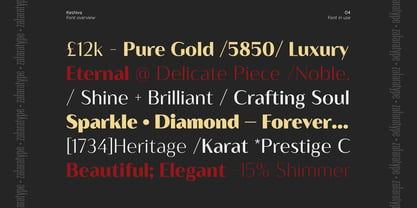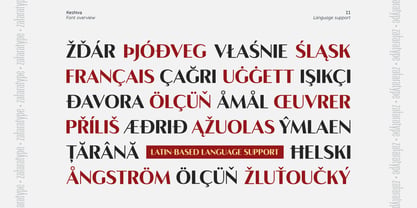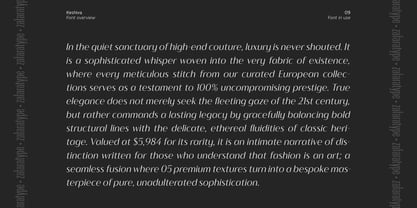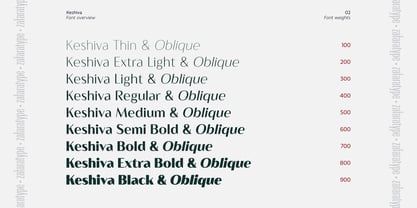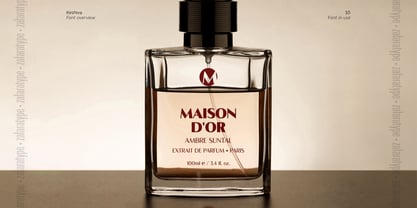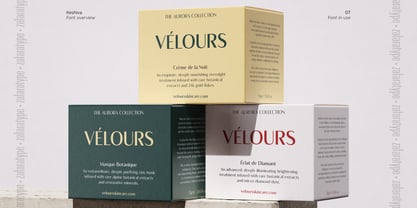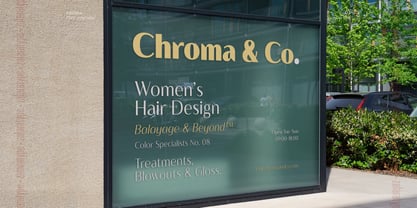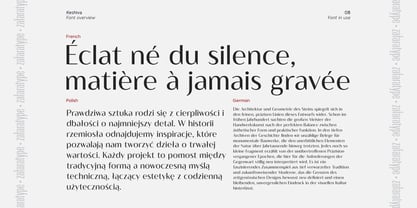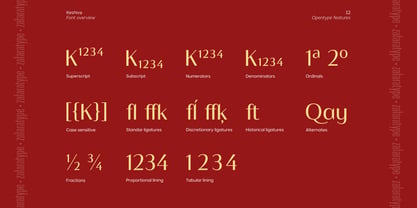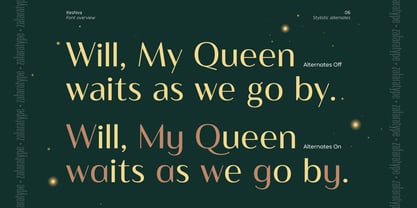
Keshiva
The Keshiva Font Family was designed by Zohan Nur Muchlis and published by Zafara Studios. Keshiva contains 18 styles and family package options. More about this family
Keshiva is a modern sans serif family with a refined, luxury-inspired aesthetic designed for contemporary branding and editorial design. Built with clean geometric structure, elegant proportions, and subtle classic influences, Keshiva delivers a sophisticated visual tone that feels polished, timeless, and highly versatile.
Its balanced construction creates a strong yet elegant presence that works seamlessly across branding, fashion, beauty, editorial layouts, packaging, logos, and modern digital design. The clarity of its forms allows Keshiva to perform well in both expressive display settings and structured typographic systems, maintaining consistency while adapting to different creative directions.
The family includes 18 styles, consisting of 9 upright and 9 oblique styles, ranging from Thin to Black. This full range provides flexibility for building refined typographic hierarchies, from delicate and minimal compositions to bold and confident statements, all within a cohesive visual system.
Carefully crafted for harmony across all weights, each style preserves the same refined character while ensuring smooth transitions throughout the family. The oblique styles introduce a subtle sense of motion and elegance, enhancing its suitability for modern branding and editorial storytelling.
With 524 glyphs and extensive Latin-based language support, Keshiva is fully equipped for multilingual use and international design projects. It is suitable for global branding, advertising, publishing, and creative work that requires both functional clarity and elevated visual expression.
Elegant, modern, and quietly confident, Keshiva is designed to bring a refined typographic voice to contemporary design systems while maintaining a timeless and sophisticated identity.